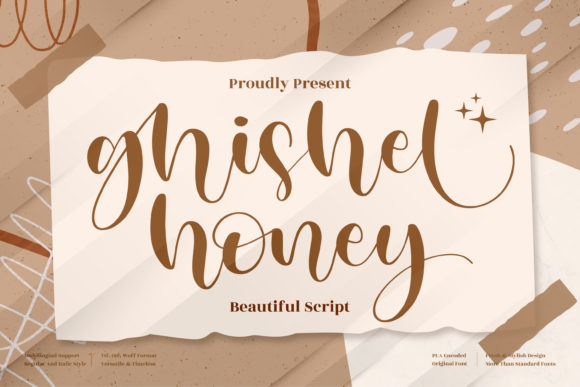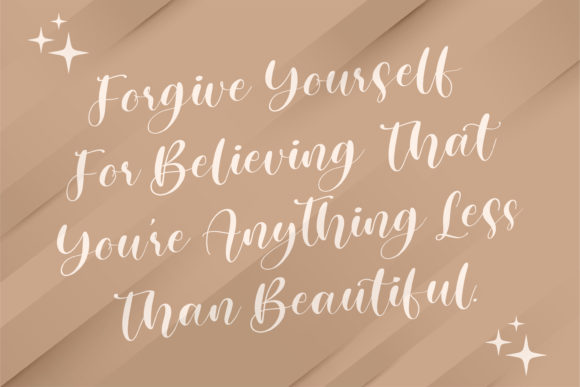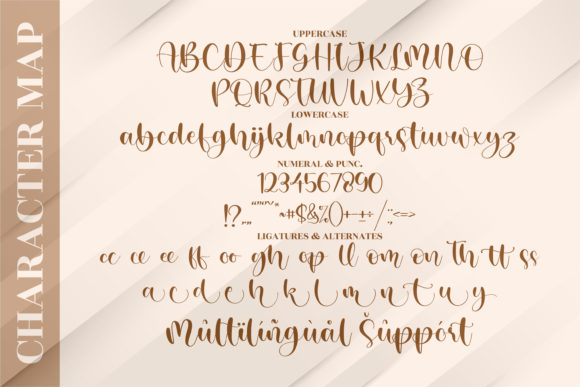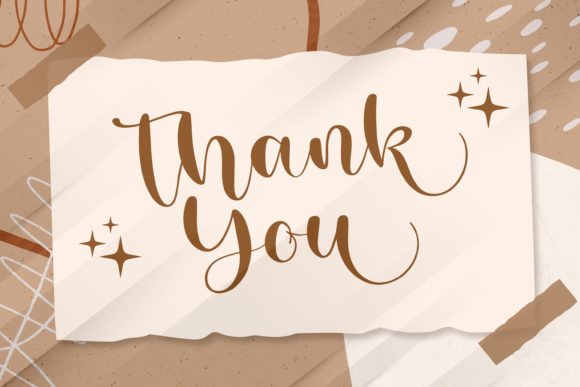
About Ghisel Honey Font
Ghisel Honey is a stylish and elegant script font. Fall for its ravishing style and use it to create gorgeous designs! This font is PUA encoded which means you can access all of the glyphs and swashes with ease!Â